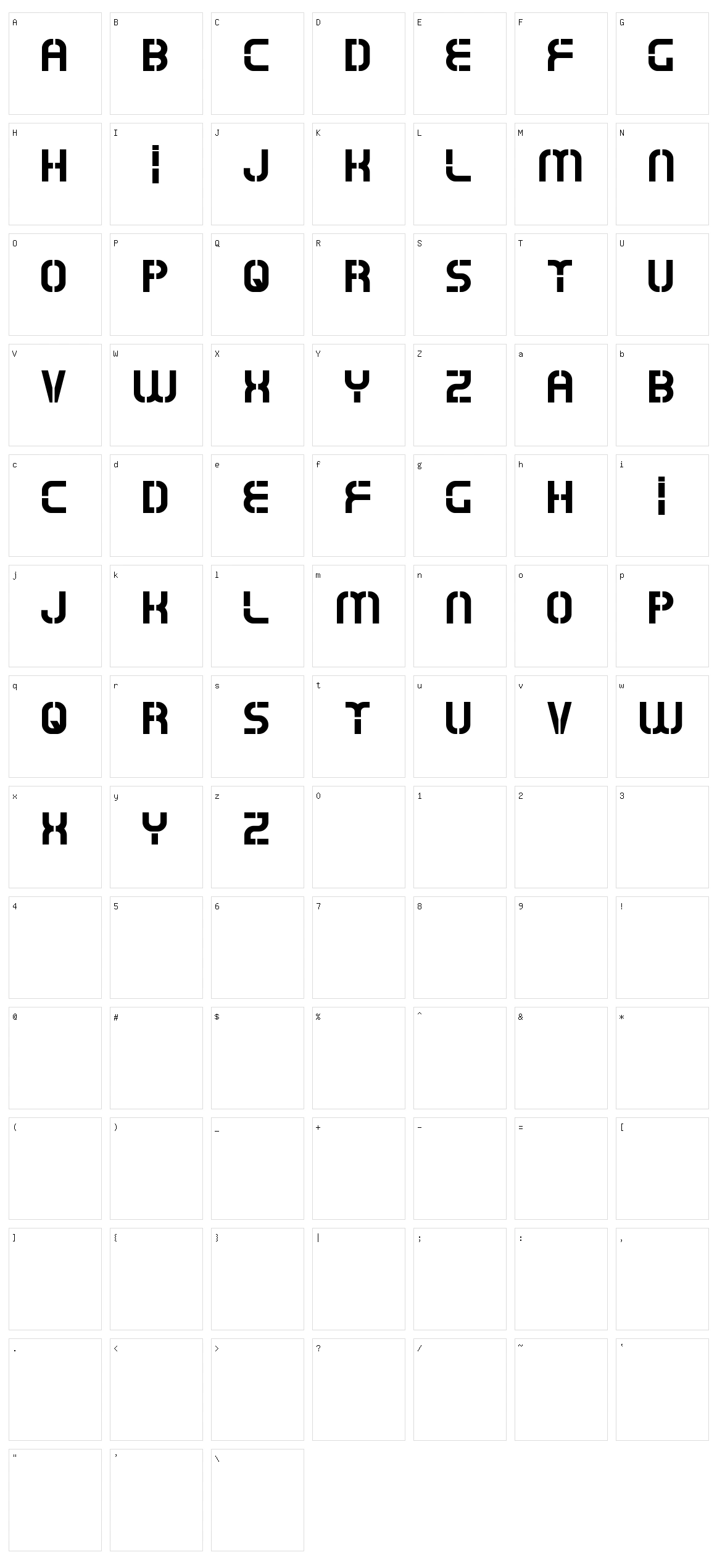
The free font Oxin Army is carefully designed by Qbotype Fonts, showcasing a thoughtful balance of creativity and usability and falls under the Stencil font style. When you download the ZIP file, it contains only 6.23 KB of font files, making it lightweight and quick to download. Please review the license details below to understand permitted usage and distribution rights. If license information is not available, we recommend using this font for personal projects only or contacting the author directly for commercial usage permissions.